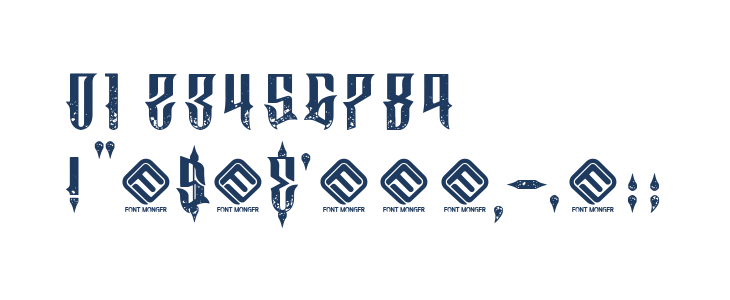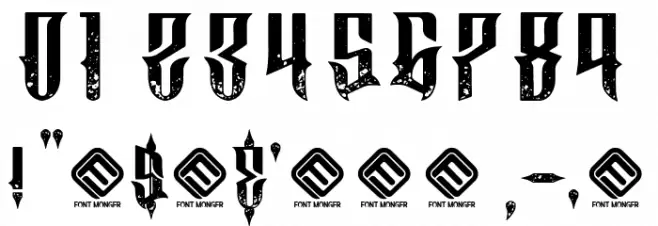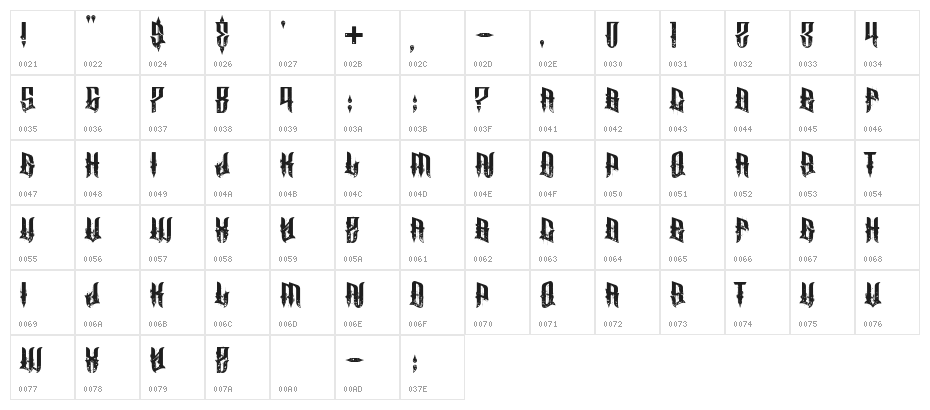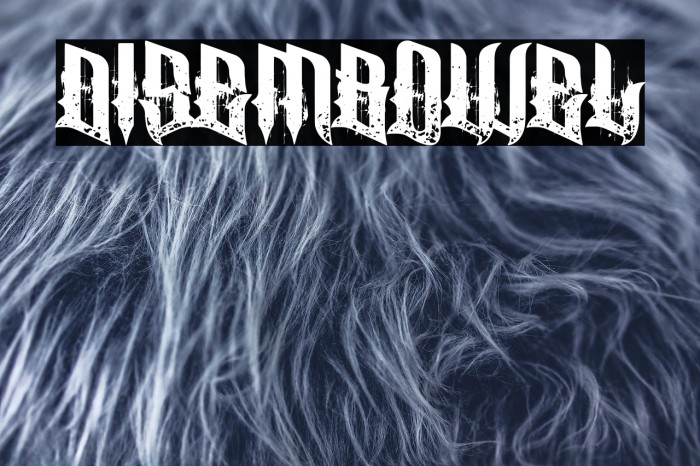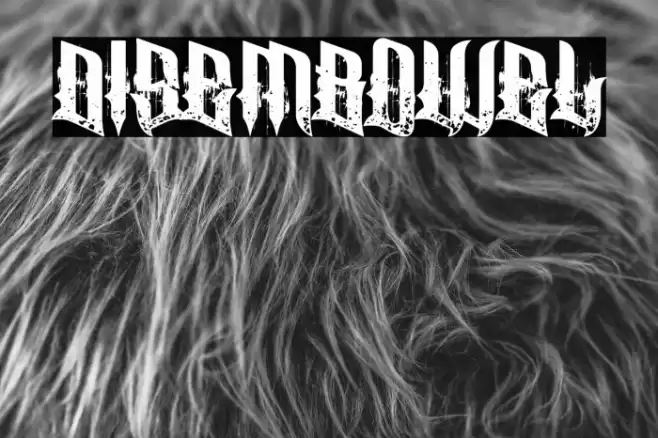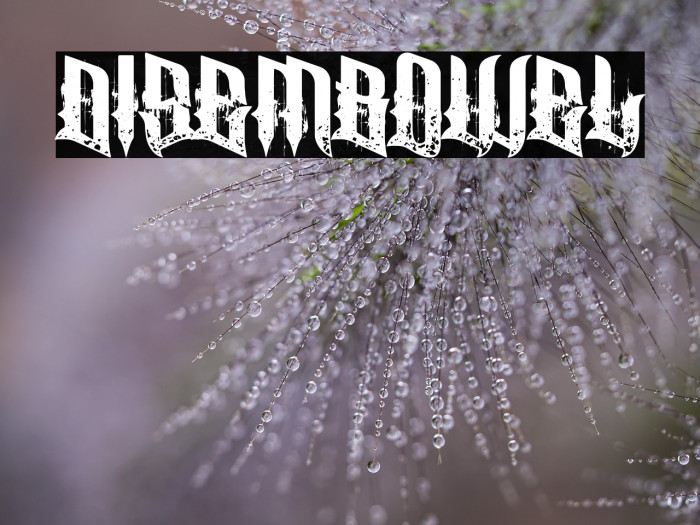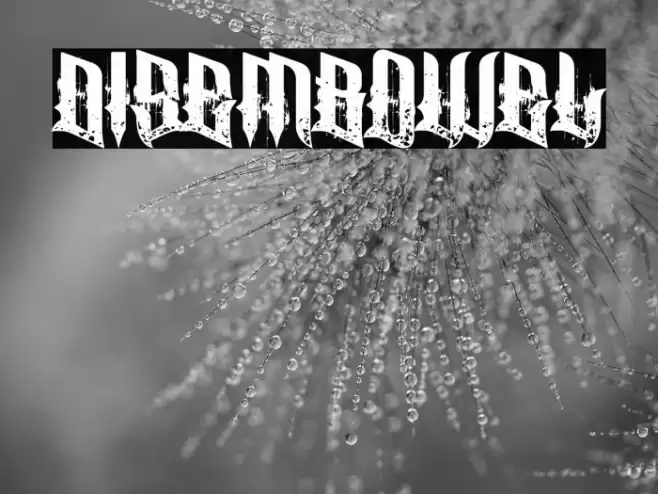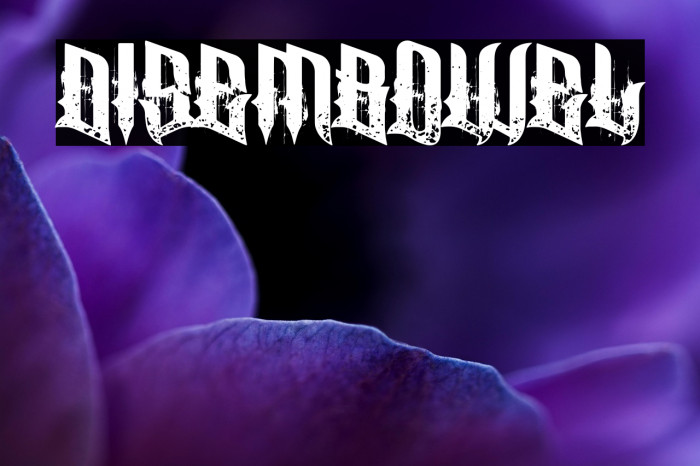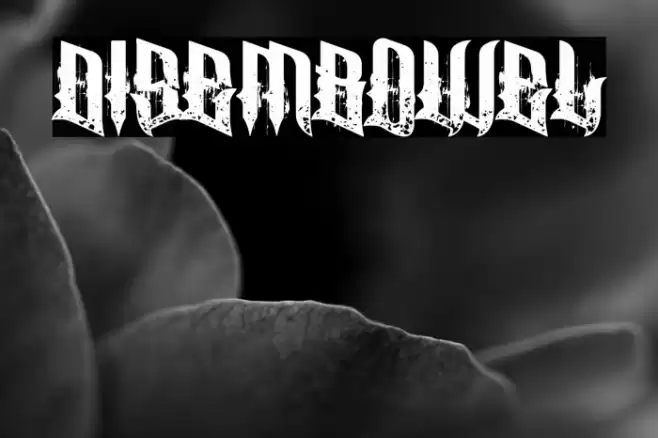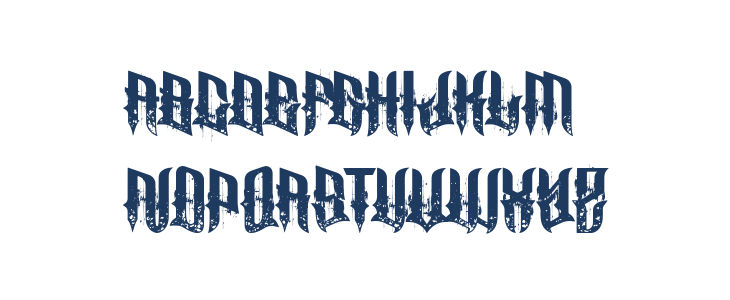
Disembowel Font
Disembowel Description
This font features a bold, aggressive style with sharp, angular edges and a distressed texture that gives it a gritty, worn appearance. The characters are heavily stylized, resembling a fusion of gothic and modern elements, with pointed serifs and intricate details that create a sense of movement and intensity. The uppercase and lowercase letters maintain a consistent design, while the numbers and special characters complement the overall aesthetic. This font is ideal for projects that require a strong visual impact and a rebellious or edgy vibe.
| Overall Style | Modern, Gothic |
| Proposed Projects | Ideal for album covers, posters, video game titles, and branding for edgy or alternative products. |